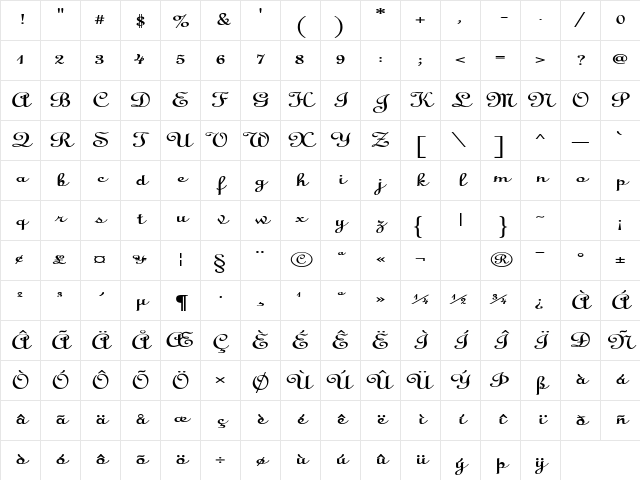
CathedralExtended Bold
Design Context for CathedralExtended
CathedralExtended is a composed and adaptable typeface that performs quietly and consistently across a wide range of design contexts. Its bold stroke weight gives it real presence on the page.